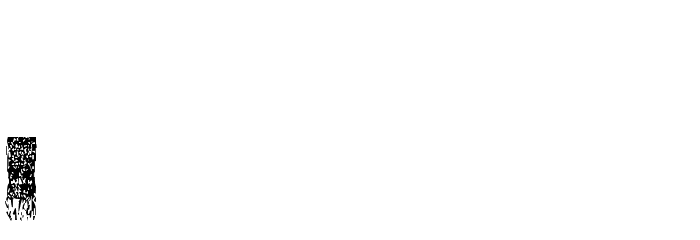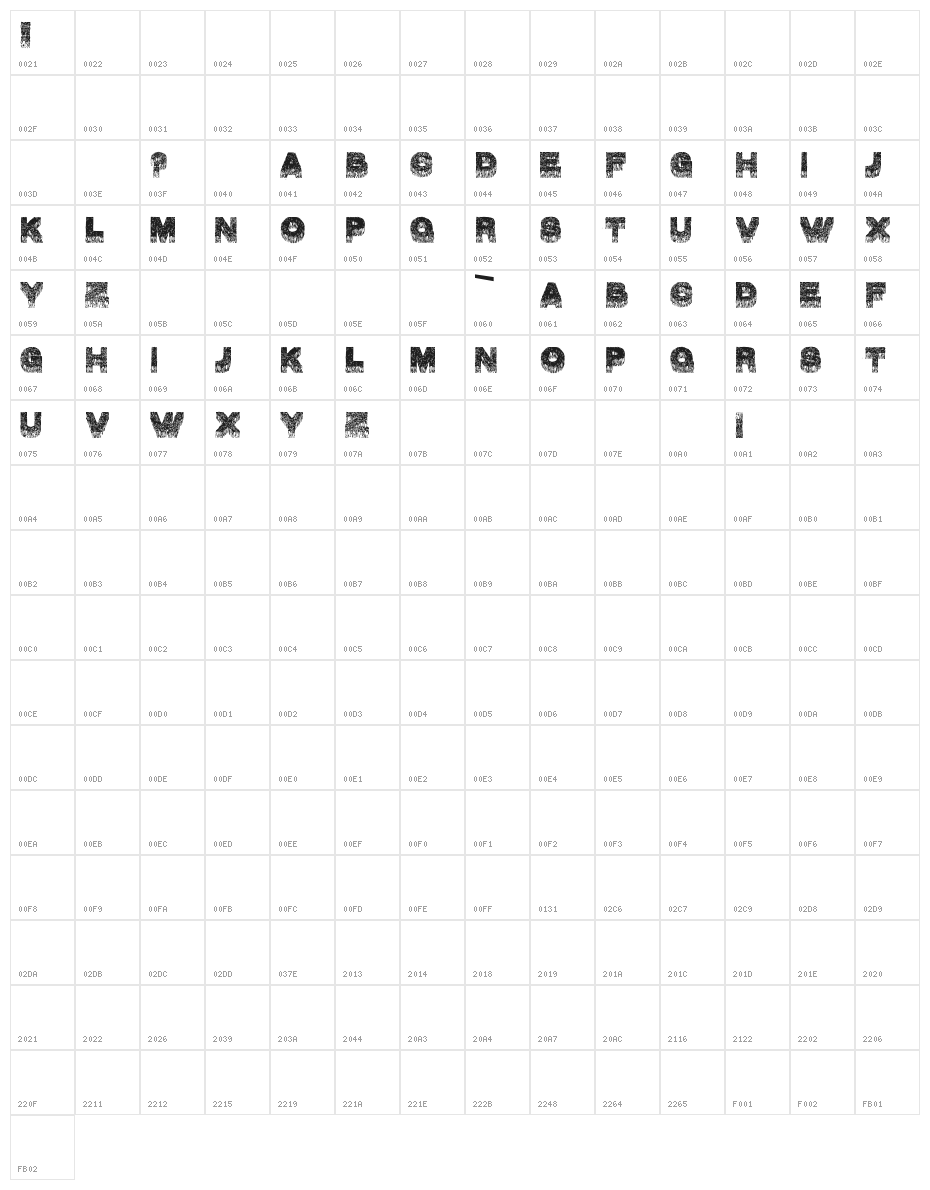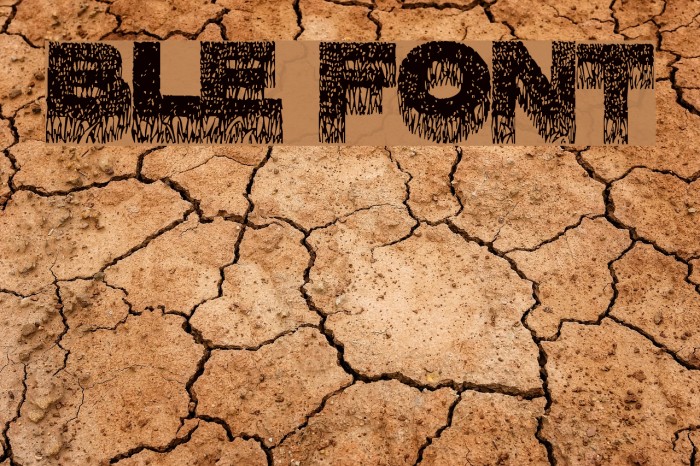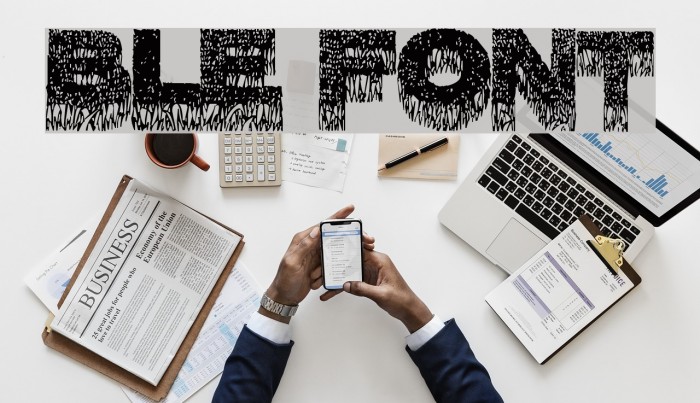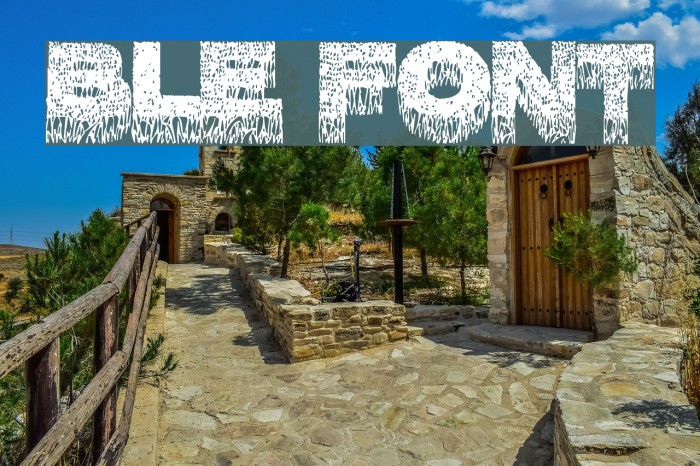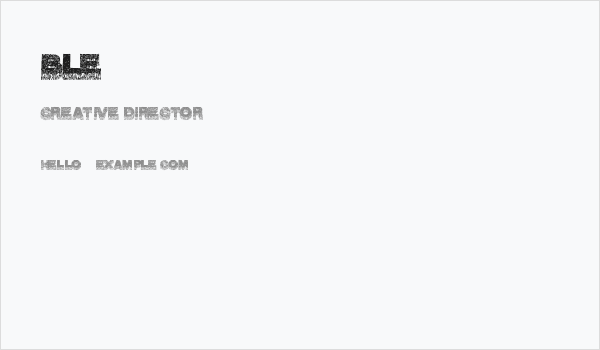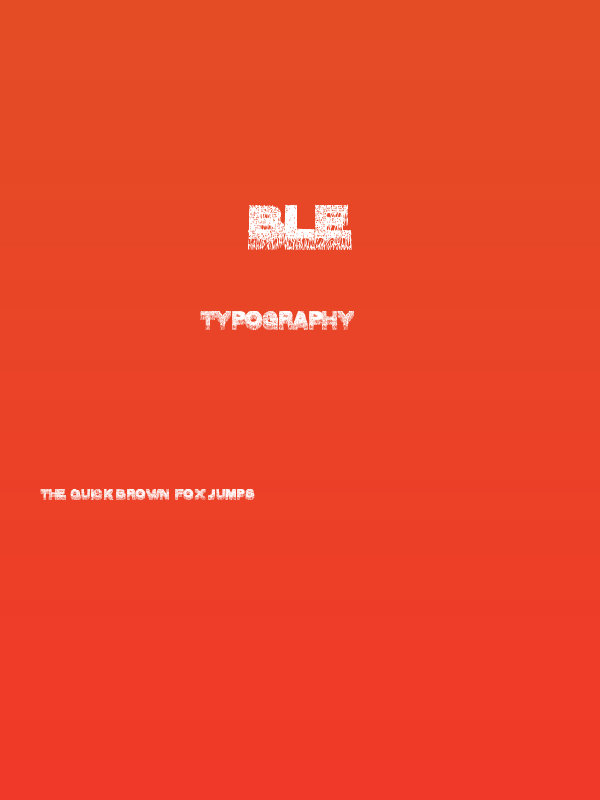
ble Font
ble Description
This font features a bold and textured design, characterized by a rough, sketch-like appearance that gives it a dynamic and energetic feel. The uppercase letters are prominently displayed with a dense, hand-drawn texture that creates a sense of movement and depth. The font's unique style makes it stand out, with each letter appearing as if it has been meticulously crafted with a pen or brush, resulting in a visually striking and artistic look. The absence of lowercase letters and numbers emphasizes its decorative nature, making it ideal for creative and expressive projects. The font's overall aesthetic is both modern and edgy, suitable for designs that aim to capture attention and convey a sense of creativity and individuality.
| Proposed Projects | Ideal for posters, album covers, branding, and artistic projects that require a bold and creative touch. |